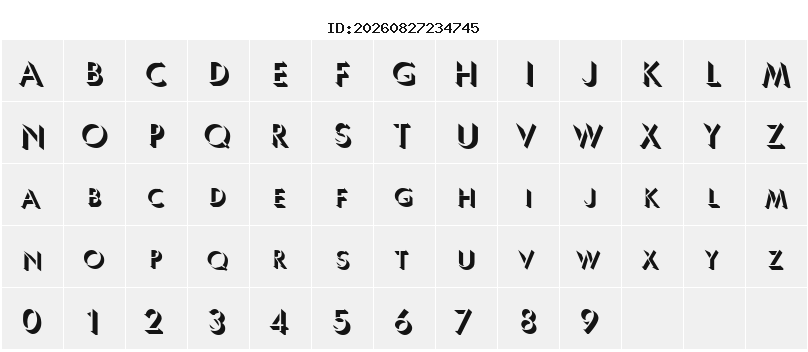
• Font Name: Tuxor Becker
Tuxor Becker.ttf is a modern, elegant sans-serif font designed for ultimate readability and visual harmony. Perfect for branding, headlines, web design, and print materials.